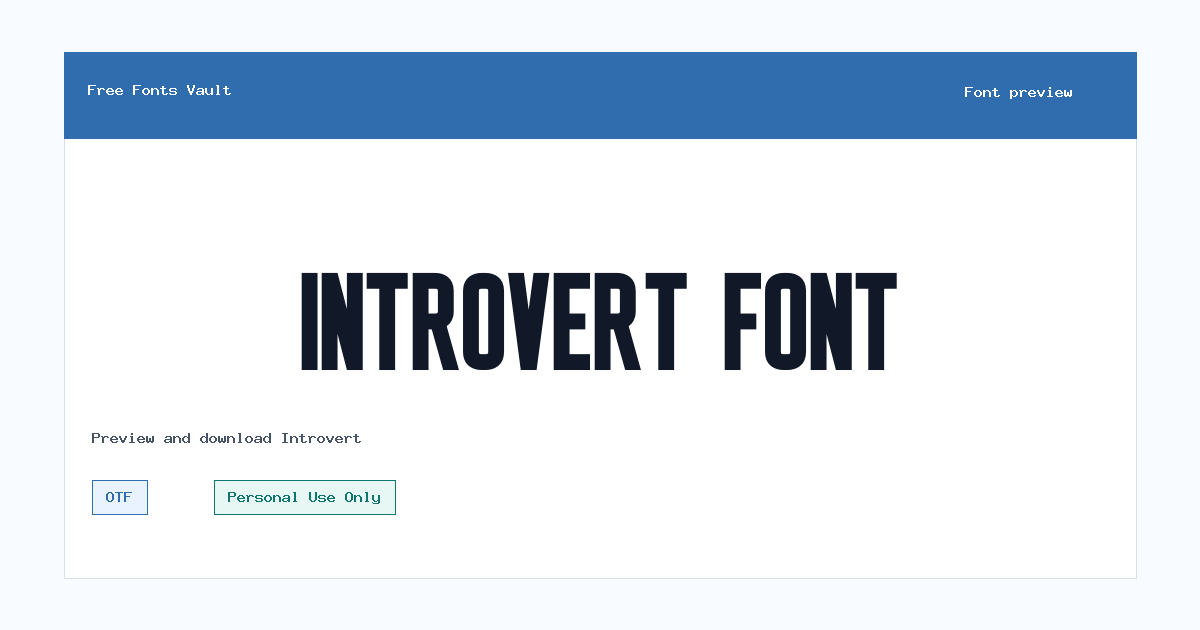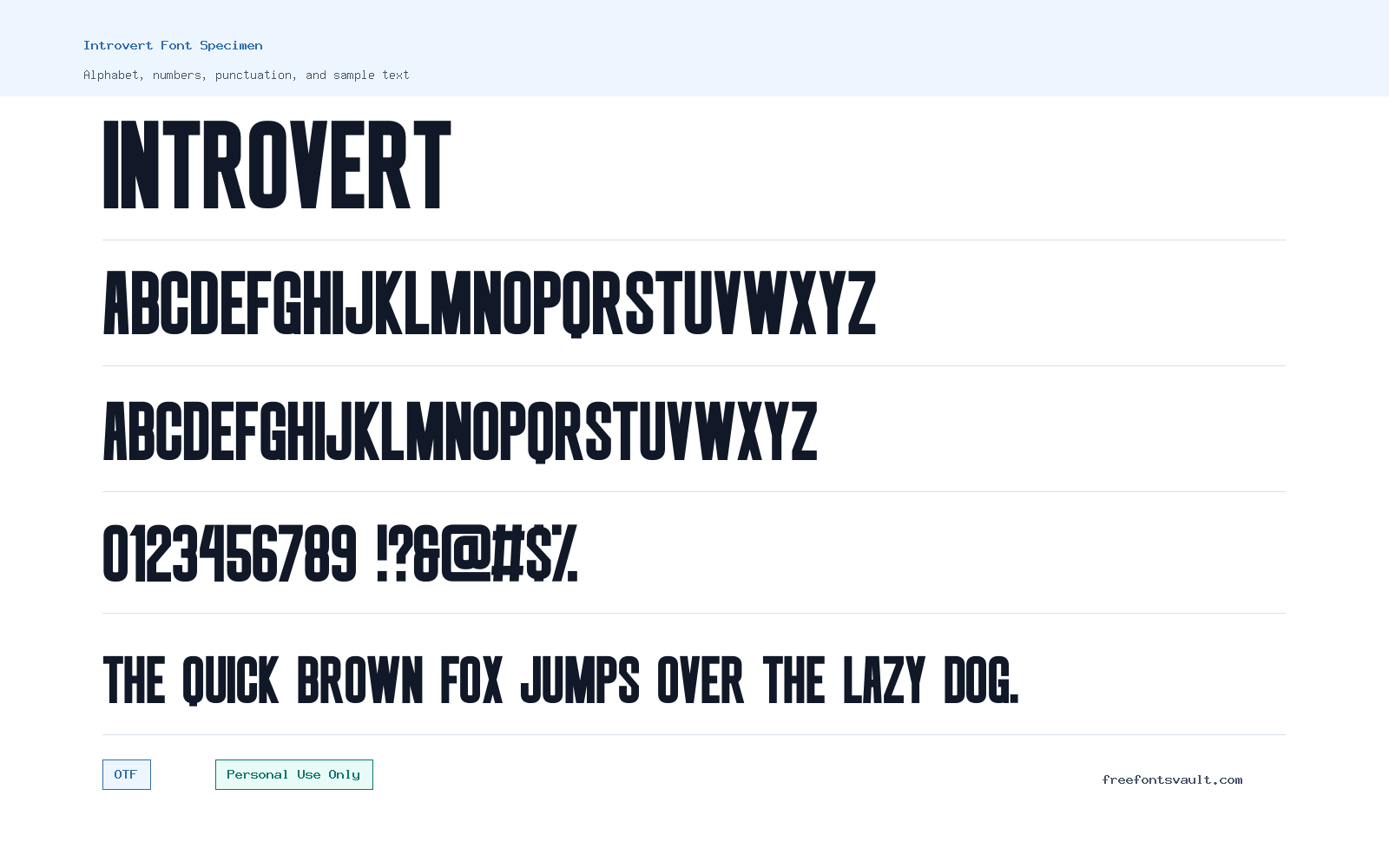
Introvert
Introvert is a personal-use sans serif font by Muhammad Rizki Utomo. It comes as a regular OTF font file, making it easy to install and test in common design apps before using it in personal projects.
Introvert works best when you need a clean sans serif voice without making the layout feel too busy. Because only the regular style is included, it is a good choice for simple headings, display text, social graphics, small poster layouts, name cards, personal branding drafts, and other designs where one clear weight is enough. Test it first with the exact words you plan to use, especially if your design depends on tight spacing, all caps, or a very small text size.
For longer reading, use Introvert with care. A single regular style can look neat in short paragraphs, but it may not give enough contrast for complex editorial layouts that need bold, italic, captions, and hierarchy. A practical setup is to use Introvert for the main title or short highlight text, then pair it with a neutral body font for descriptions, menus, credits, or article copy. In the preview box, try uppercase and lowercase words, numbers, punctuation, and a few real phrases instead of only typing a brand name. This helps you see spacing, readability, and whether the tone fits your project before downloading.
• Sans serif style that is most useful for short display text, clean titles, and personal design experiments.
• Personal posters, mood boards, social media graphics, and title treatments.
• Logo concept drafts, name cards, simple headers, and layout mockups for non-commercial use.